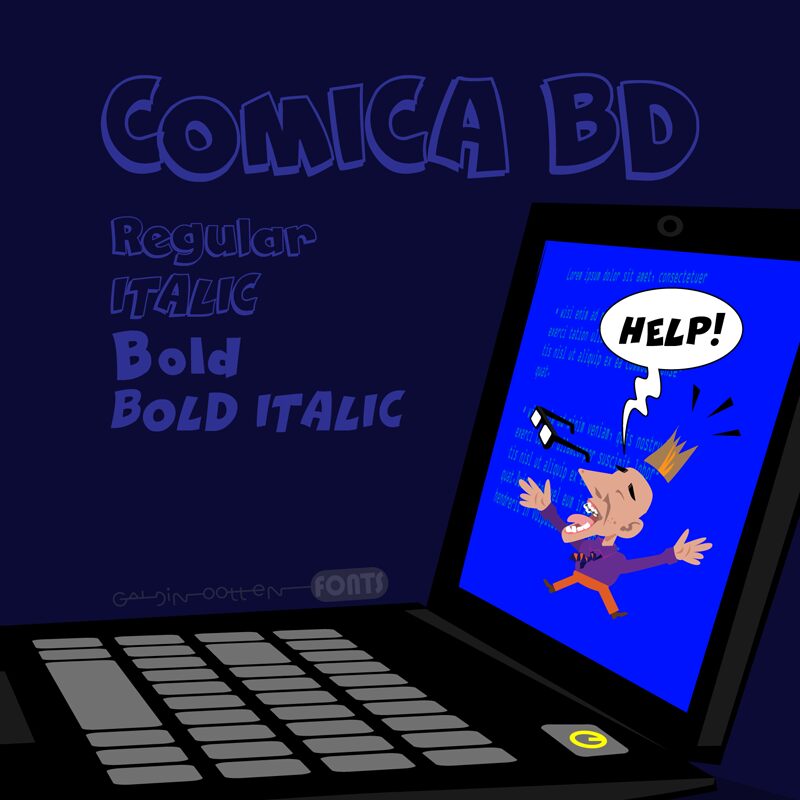
Comica BD Italic font from Galdino Otten Fonts is a bubbly display typeface whose exaggerated curves and cartoon features give it uniqueness. An obvious comic inspiration fills the typography with an energetic essence that makes letters pop to deliver a playful imprint. Bold and brushed, the font balances the natural look of distinct imperfection with style-specific accuracy.
Free for commercial use, Comica BD Italic will shine in children's books, branding delivery, YouTube channels artwork, digital streaming platforms design (e.g. Netflix), games interfaces, logos in packaging design of toys or foodstuff (e.g. candies). Additional uses may include comics headlines or subheadings, holograms & AR experiences designs.